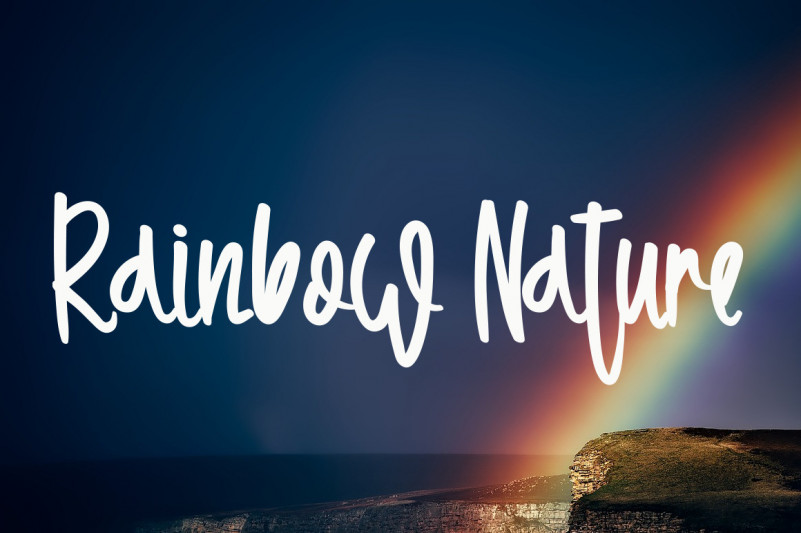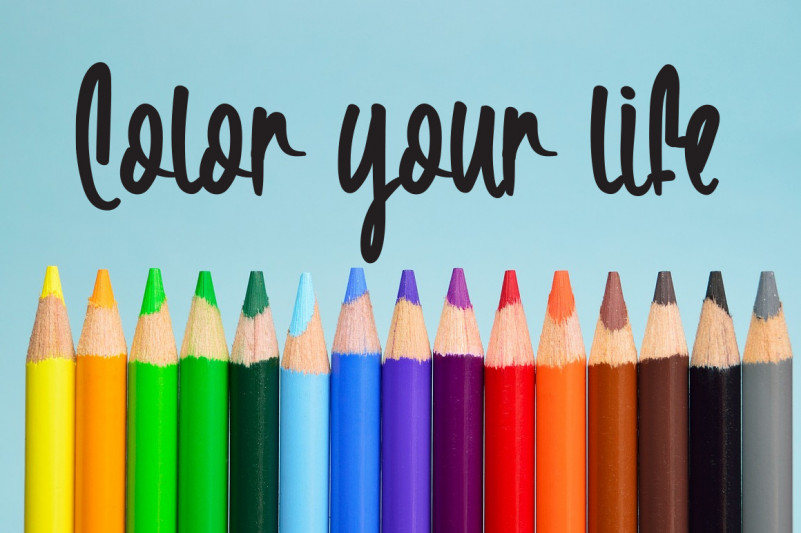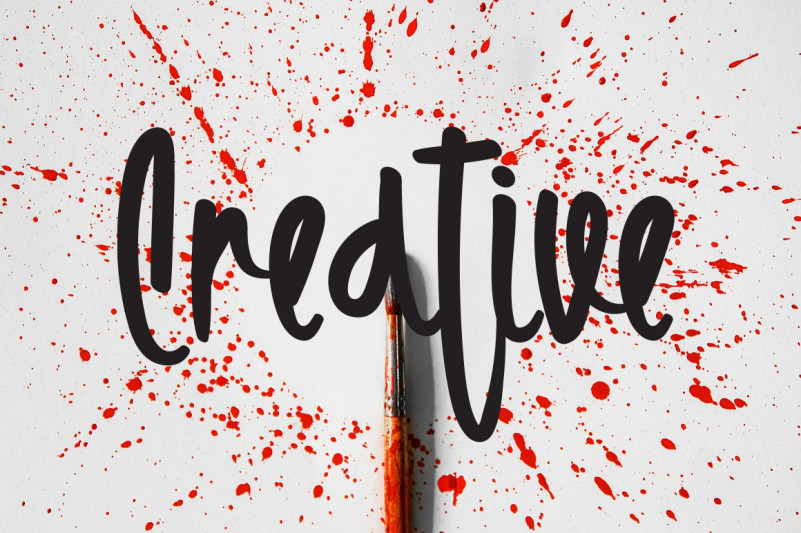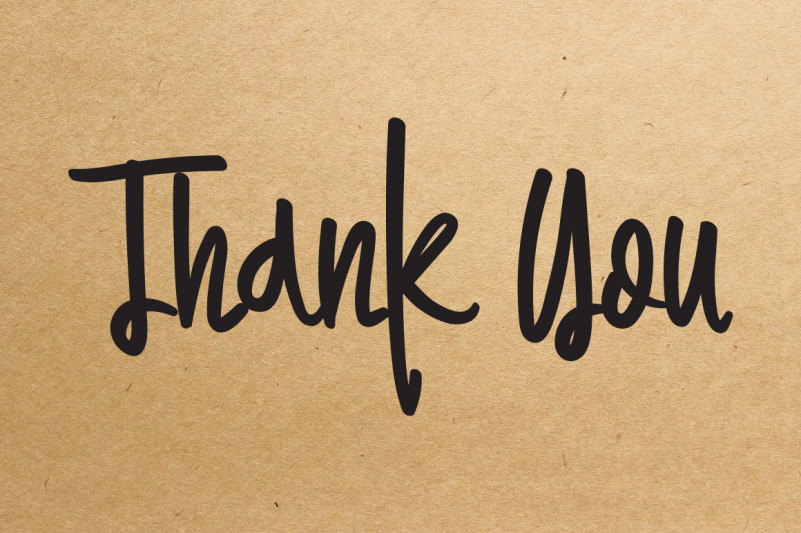
Watercolor Rainbow Font
Watercolor Rainbow Script Font
This is a friendly handwritten font. Beautifully clear and cursive, this font is here to make your creations seem out of this world! Fall in love with this font and use it in your most creative projects!